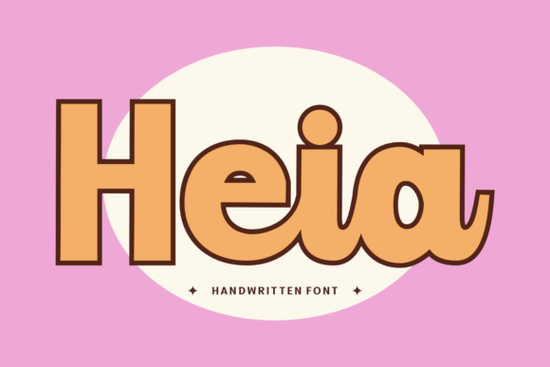
When you are working on personalized Cricut projects or designing elegant wedding invitations, finding the right handwritten aesthetic can make or break the final look. The Heia Font offers a stylish and sophisticated lettering style that marries simplicity with artistic finesse. Its organic design and unique finish provide a gentle romantic flair, making it a highly versatile choice for crafters and small business owners looking to add a personal touch to their work.
What makes this script font ideal for crafting and Cricut?
Crafters often struggle with script typefaces that are too thin or have overly complex connections, which can cause cutting issues. This specific design evolves as an organic layout that is perfect for minimalist aesthetics. The unique finish ensures that when you send it to your cutting machine, the paths are clean and easy to weed. It captures the essence of different seasons, making it a lovely addition to kids’ crafts, September-themed projects, or feminine product designs. If you need a reliable option for your vinyl decals and want to explore more options, you can easily browse our library of flowing cursive styles to find the perfect match.
How can small businesses use it for branding and packaging?
For small businesses and print-on-demand sellers, typography is a huge part of brand identity. Whether you are designing classy logotypes, adding beautiful texture to cake designs, or laying out brochures for a bold statement, this lettering delivers. Its ligature influences lend it a free-flowing appeal that cursive enthusiasts love. You can use it for baby announcements, women-centric product labels, or rustic-themed packaging. When pairing it with secondary text, you might want to look at structured alternatives like the textured organic options to create a nice visual contrast on your packaging and labels.
What are the best ways to pair it with other typefaces?
A common question designers ask is how to pair a highly stylized script without overwhelming the reader. The key is to balance its unmatchable elegance with a clean, simple sans-serif or a subtle serif. It is as appealing to couples prepping their wedding stationery as it is to teachers looking for a unique script for school assignments. If you are building a wedding suite, pair it with a classic serif for the body text. For a more relaxed, weekend vibe in your social media graphics, you could mix it with casual weekend scripts to keep the overall design feeling approachable and fresh.
Where can I find more romantic and rustic scripts?